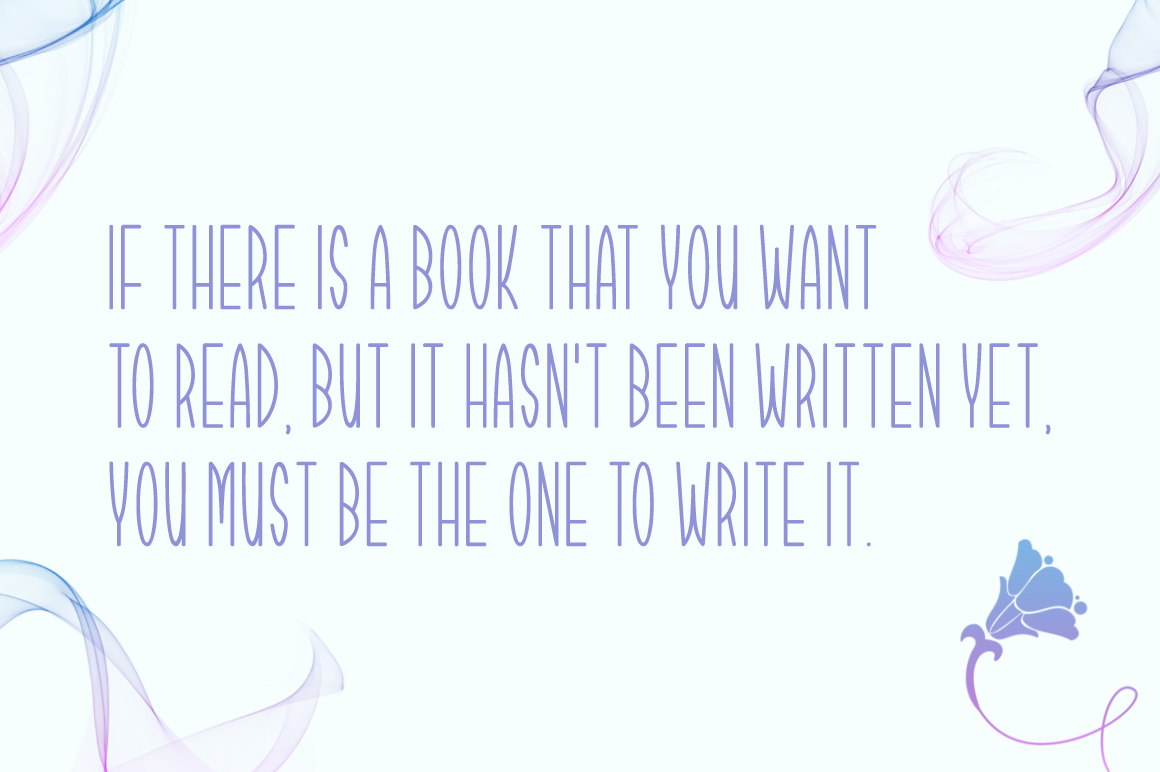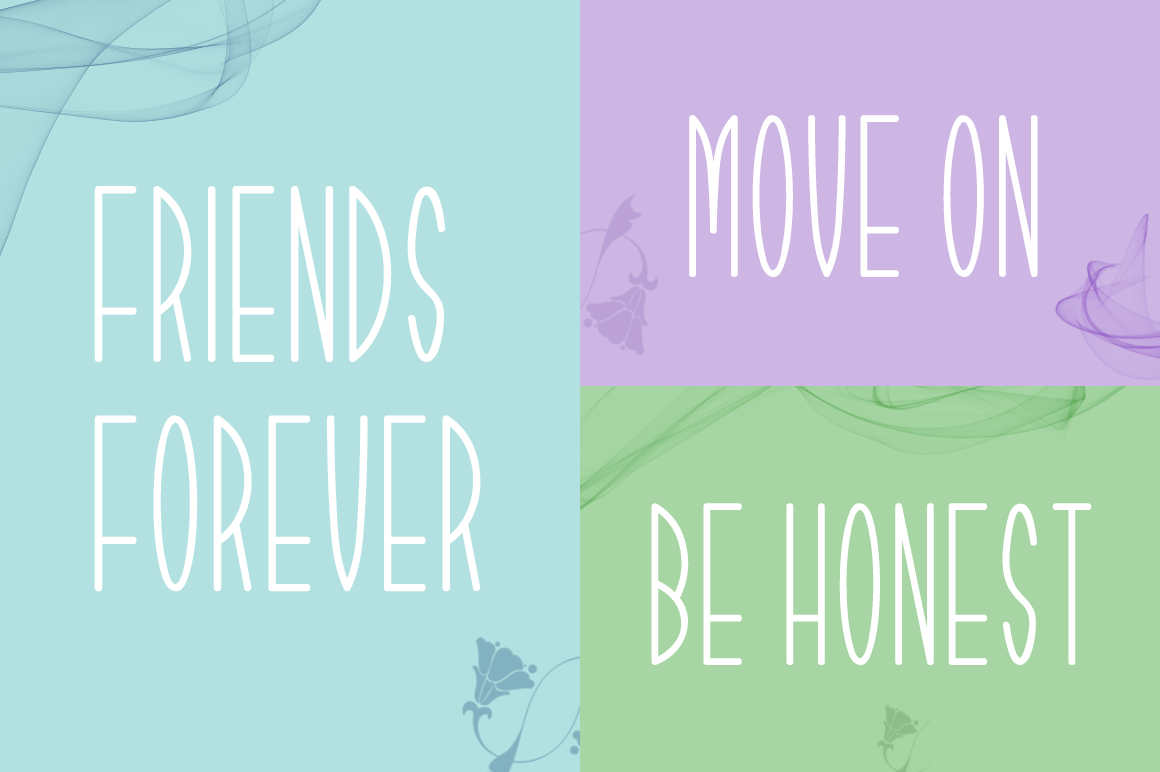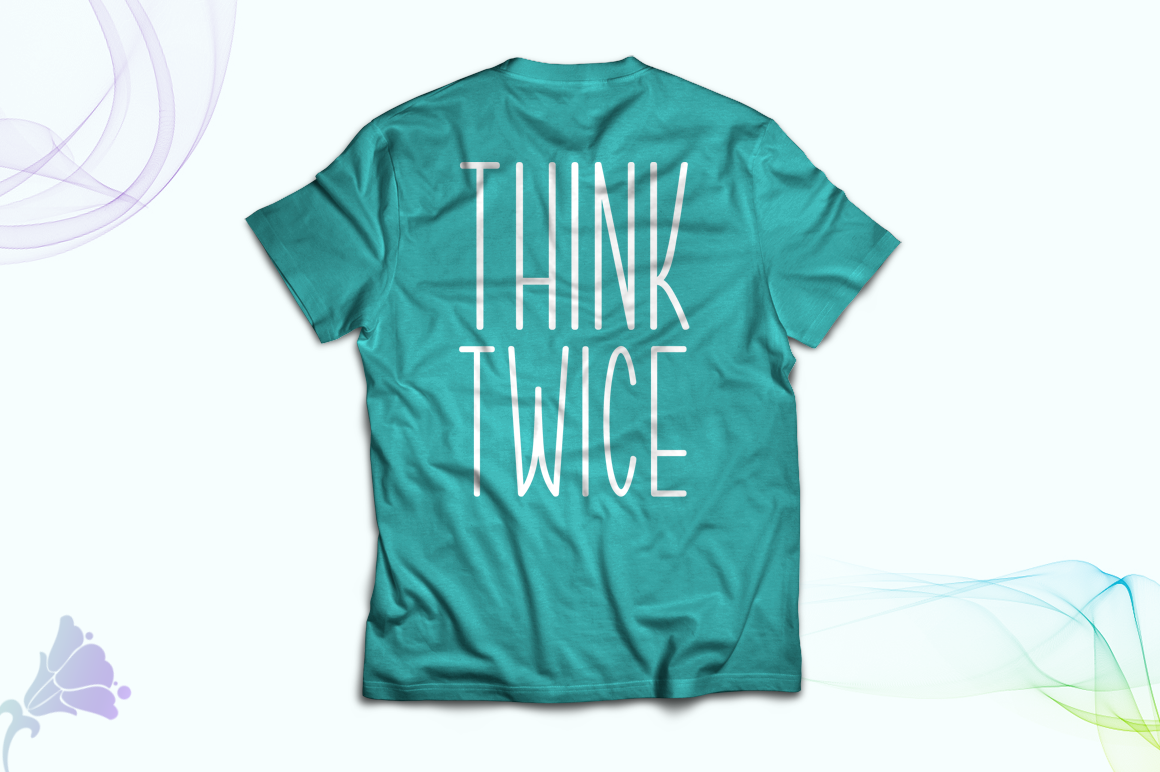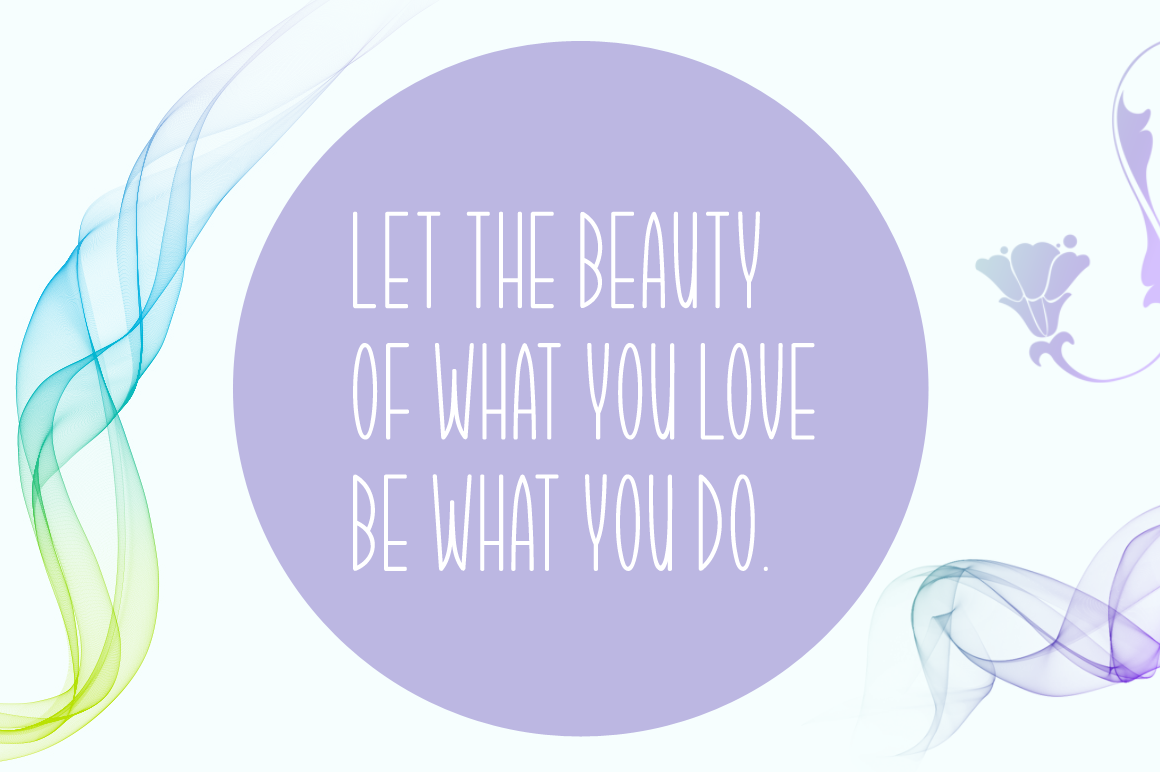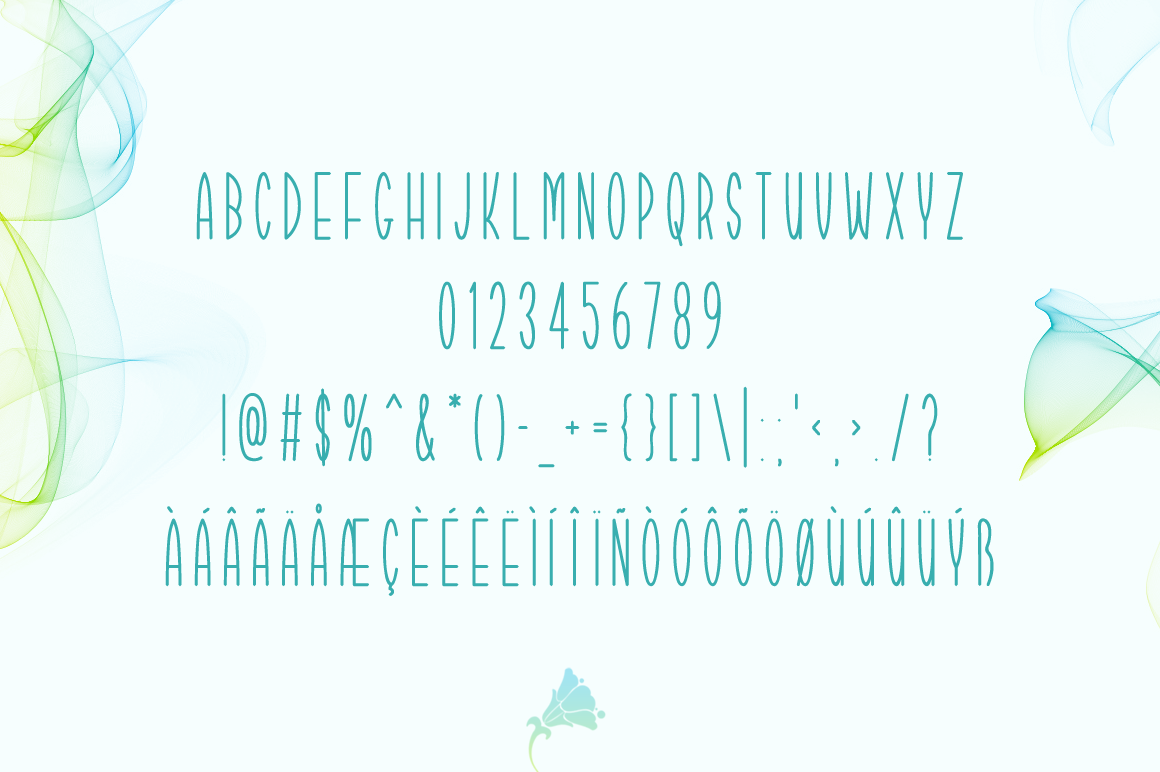
Introducing Bookrack Font: The Perfect Choice for Lighthearted Designs
In the world of typography, fonts play a crucial role in setting the tone and personality of a design. If you’re looking for a font that exudes a sense of playfulness and whimsy, look no further than Bookrack Font. This cutesy, thin font is perfect for lighthearted designs and is sure to add a touch of charm to your creative projects.
What is Bookrack Font?
Bookrack Font is a sans serif font that is crafted to be both modern and relaxed. Its thin lines and delicate curves make it an ideal choice for designers who want to add a touch of elegance and sophistication to their work. Despite its refined appearance, Bookrack Font has a distinctly playful feel that makes it perfect for use in a variety of creative projects.
Characteristics of Bookrack Font
So, what makes Bookrack Font so special? Here are just a few of its key characteristics:
- Cutesy and playful: Bookrack Font has a distinctly whimsical feel that makes it perfect for use in lighthearted designs.
- Thin lines: The font’s thin lines give it a delicate, refined appearance that is perfect for modern designs.
- Sans serif: Bookrack Font is a sans serif font, which means it doesn’t have the small lines or flourishes that are characteristic of serif fonts.
- Modern and relaxed: The font has a distinctly modern feel, but it’s also relaxed and approachable.
Uses for Bookrack Font
So, what kinds of projects is Bookrack Font perfect for? Here are just a few ideas:
- Children’s designs: Bookrack Font is perfect for use in children’s books, educational materials, and other designs aimed at kids.
- Wedding designs: The font’s delicate, refined appearance makes it a great choice for wedding invitations, programs, and other wedding-related designs.
- Branding and packaging: Bookrack Font is a great choice for brands that want to convey a sense of playfulness and approachability.
- Social media graphics: The font’s modern, relaxed feel makes it perfect for use in social media graphics, such as Facebook posts and Instagram stories.
Tips for Using Bookrack Font
Here are a few tips for getting the most out of Bookrack Font:
- Use it sparingly: Because Bookrack Font is so delicate, it’s best to use it sparingly. Try using it for headings or titles, and a more straightforward font for body text.
- Experiment with colors: Bookrack Font looks great in a variety of colors, so don’t be afraid to experiment. Try pairing it with bright, bold colors for a playful look.
- Pair it with other fonts: Bookrack Font pairs well with a variety of other fonts, so try experimenting with different combinations to find the one that works best for your design.
Bookrack Font is a unique and versatile font that is perfect for designers who want to add a touch of playfulness and whimsy to their work. Its delicate, refined appearance makes it a great choice for modern designs, while its playful feel makes it perfect for use in lighthearted projects. Whether you’re designing a children’s book, a wedding invitation, or a social media graphic, Bookrack Font is sure to be a great choice.
With its unique combination of playfulness and sophistication, Bookrack Font is sure to be a valuable addition to any designer’s toolkit. So why not give it a try and see how it can add a touch of charm to your next design project?